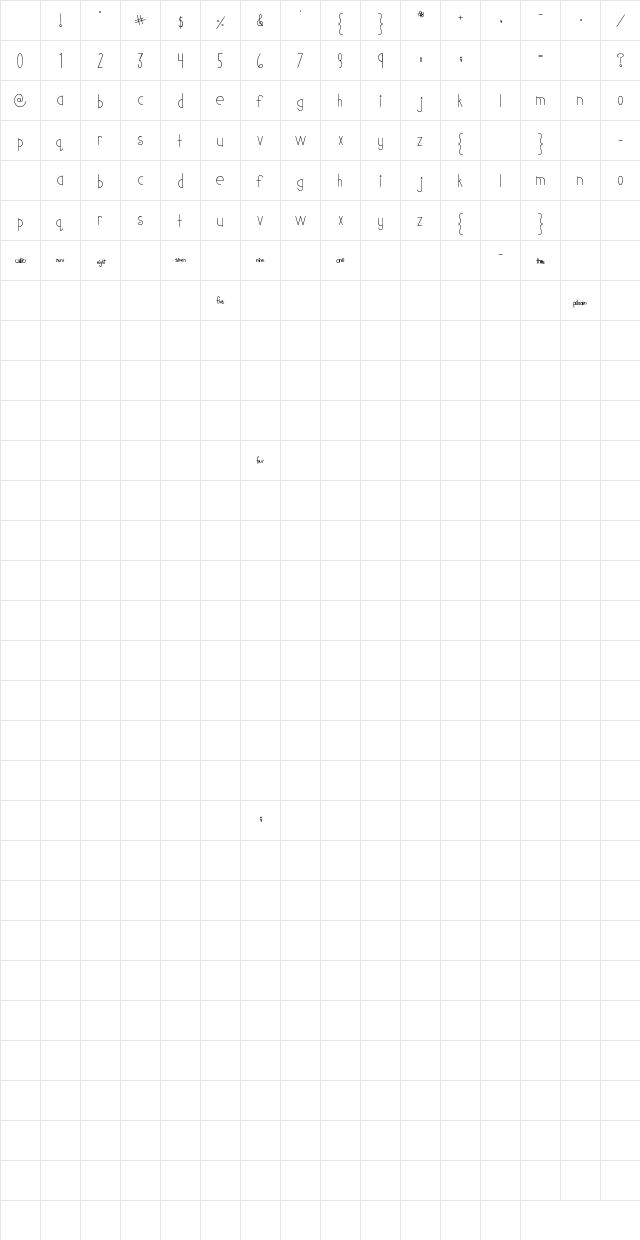
Complete MTF Cutie Patootie Regular glyph index. Displaying only characters natively supported by MTF Cutie Patootie Regular font.
MTF Cutie Patootie is a composed and adaptable typeface that performs quietly and consistently across a wide range of design contexts.